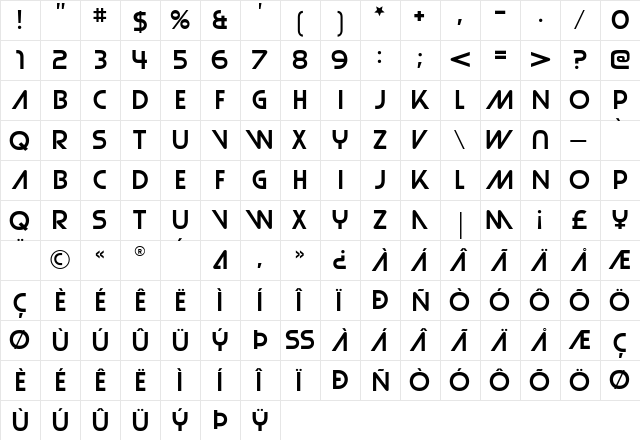
Strasua Regular Font Preview
Strasua Regular
Design Context for Strasua Typeface
Strasua offers clean, dependable letterforms without strong stylistic allegiance, making it a practical choice for designers who need flexibility.